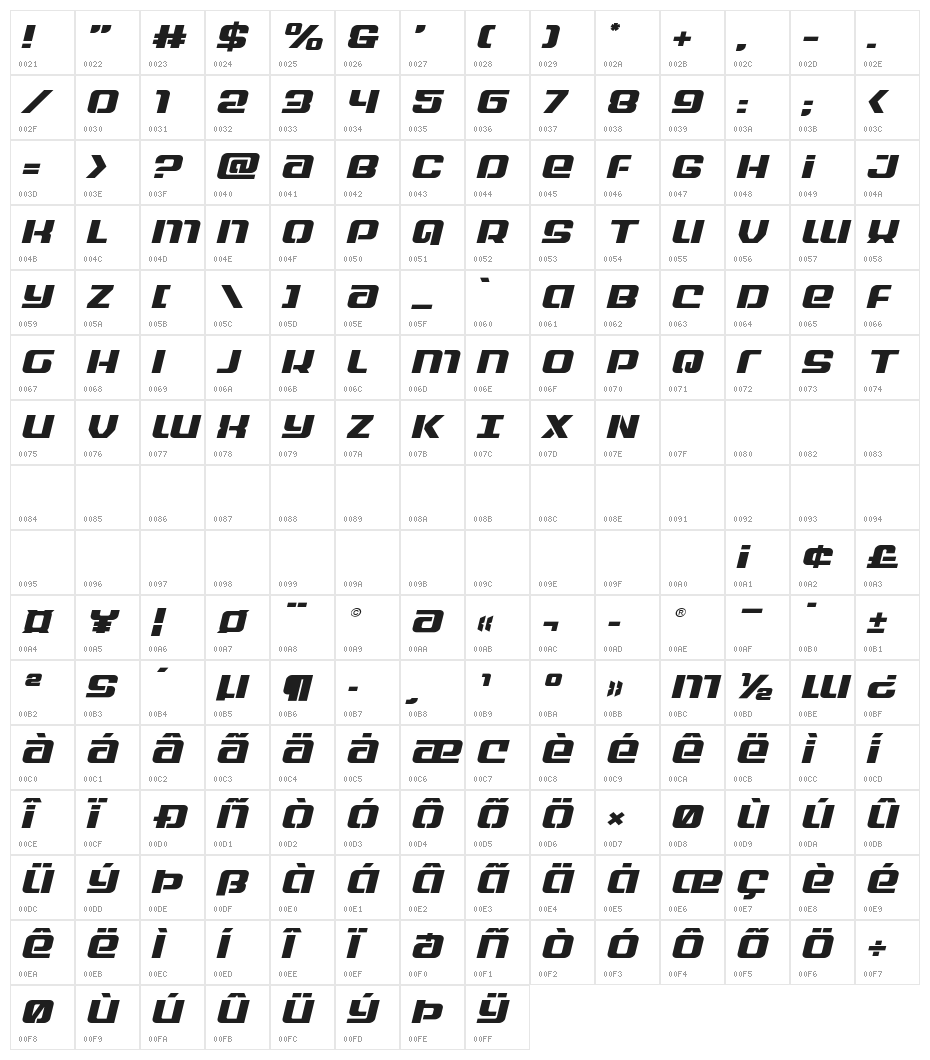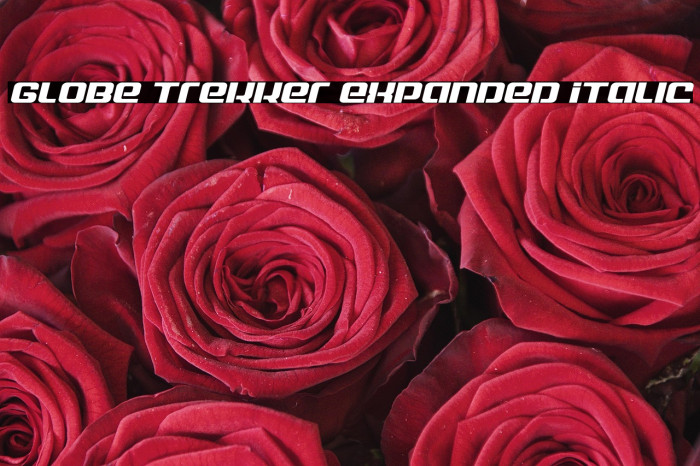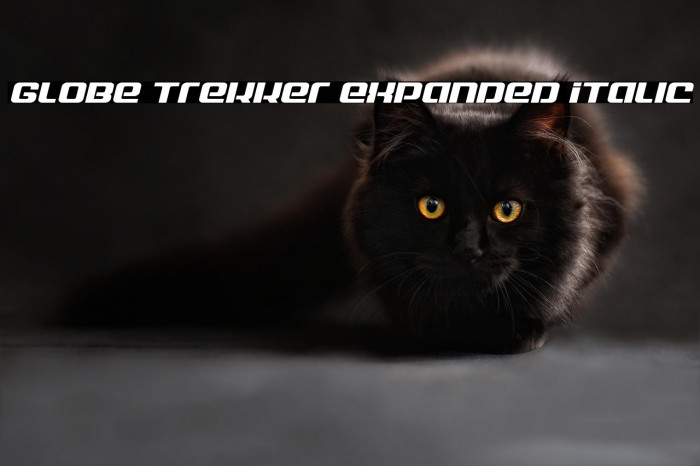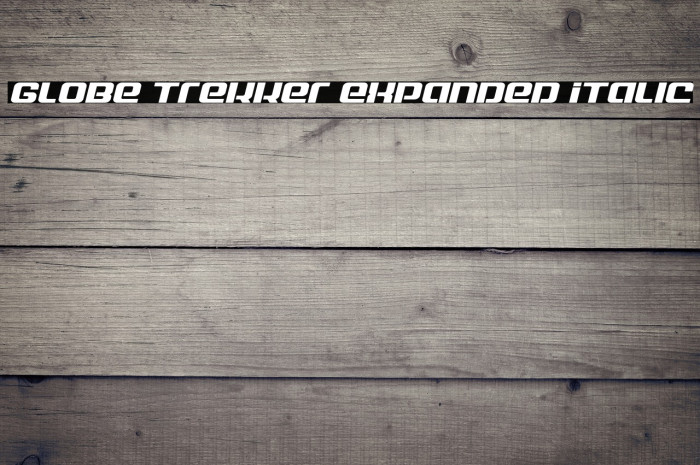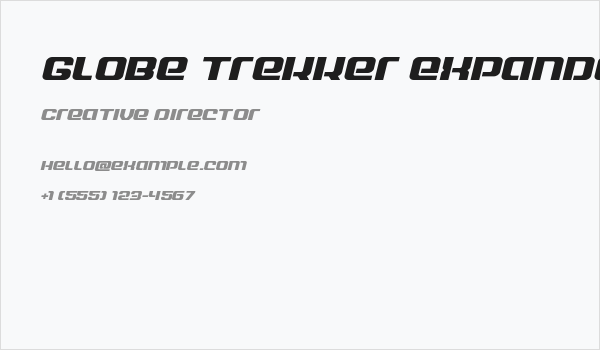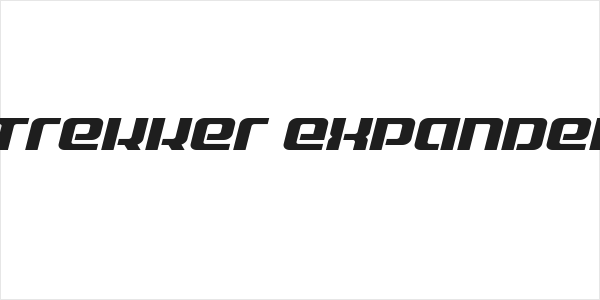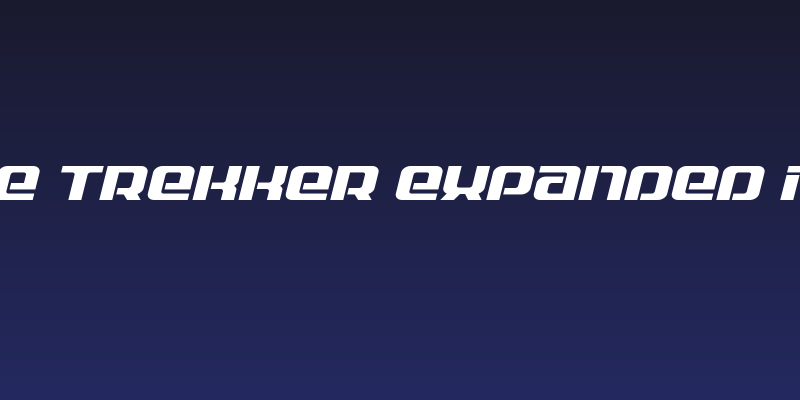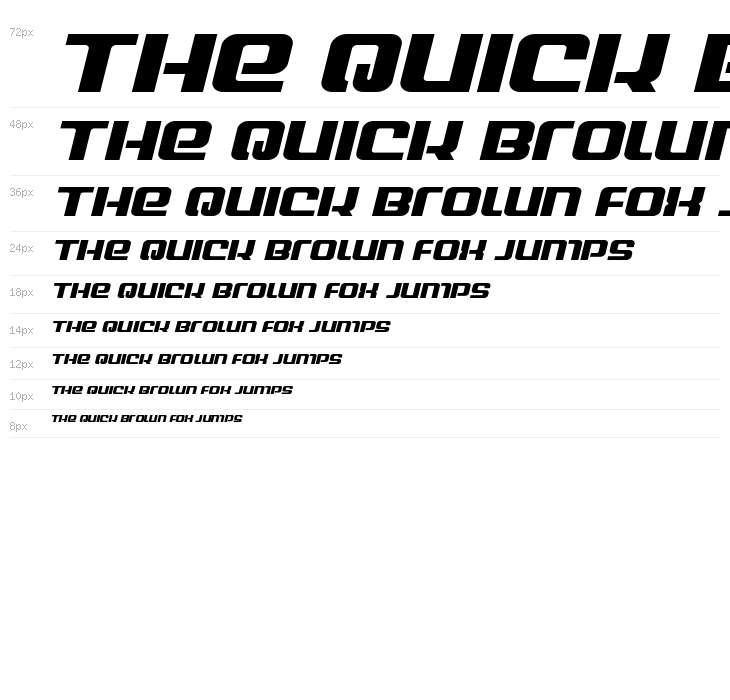
Globe Trekker Expanded Italic Font
Globe Trekker Expanded Italic Description
This font exhibits a bold and dynamic style with an italic slant, giving it a sense of motion and energy. The characters are expanded, providing a wide and open appearance that enhances readability while maintaining a modern aesthetic. The strokes are consistent in thickness, contributing to a uniform look across all characters. The design features rounded edges and smooth curves, which add a touch of softness to the otherwise robust and assertive character shapes. This combination of features makes it suitable for projects that require a contemporary and impactful visual presence.